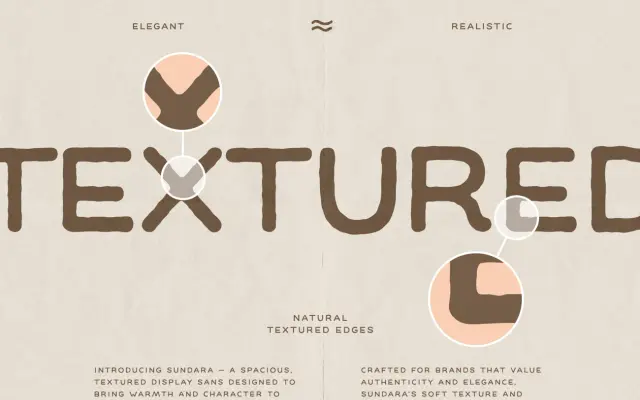
Sundara
A wide, lightly textured display sans with a handmade quality suited to packaging, headlines and brand identity work.
Built around generous letter spacing and a wide stance, it carries a subtle handmade texture that softens its sans-serif structure without tipping into script territory. The short cap height and open proportions give it an unhurried, airy rhythm well suited to social media graphics, packaging and brand headlines. The 217-glyph set includes multilingual and extended Latin characters.
A wide, textured display sans with a handmade quality and generous proportions, positioned explicitly for headlines and branding rather than body text use.